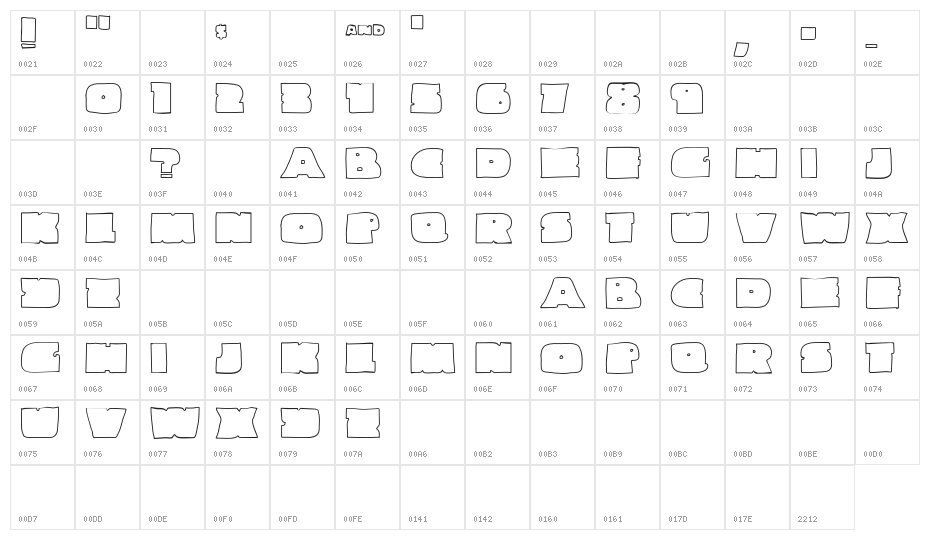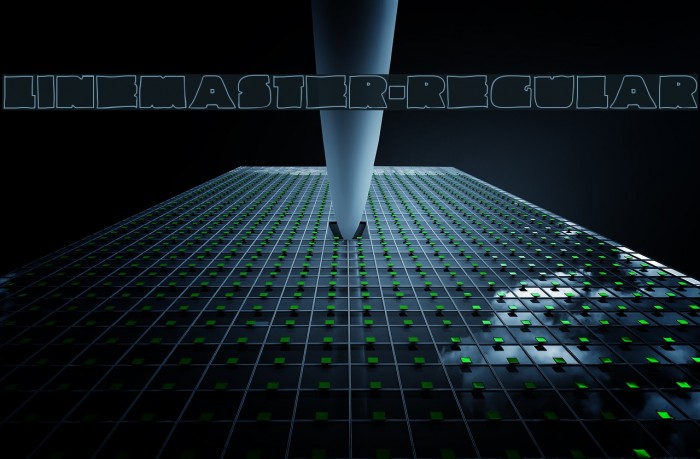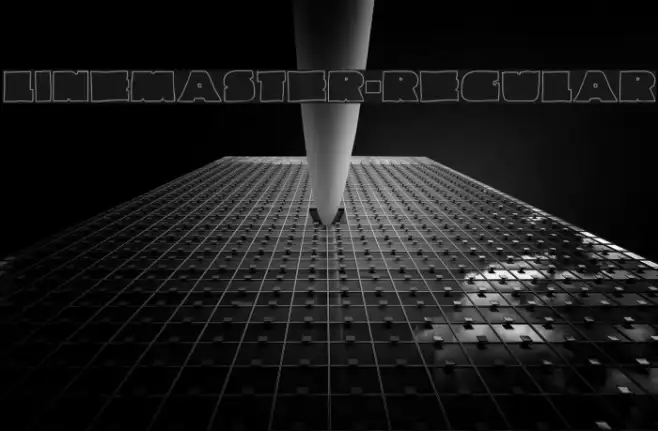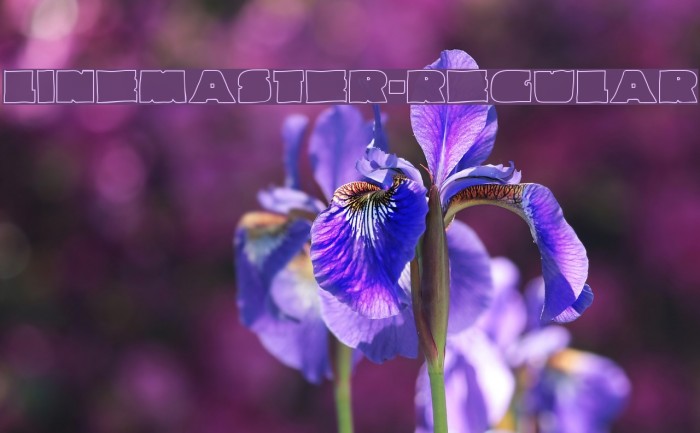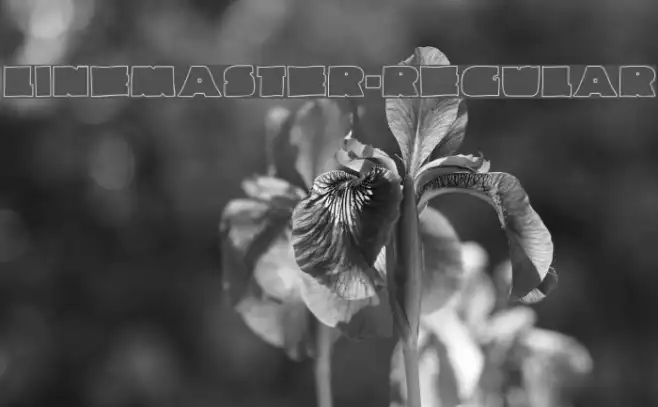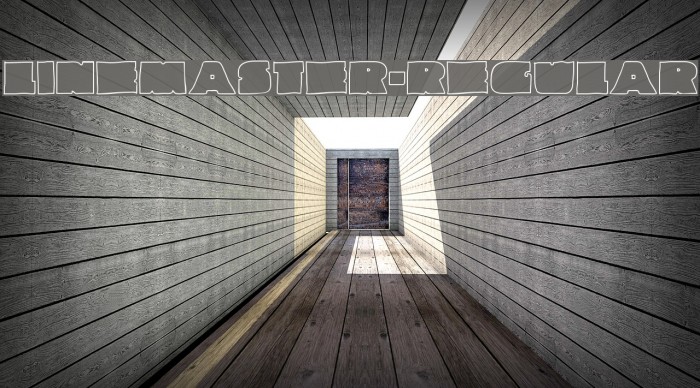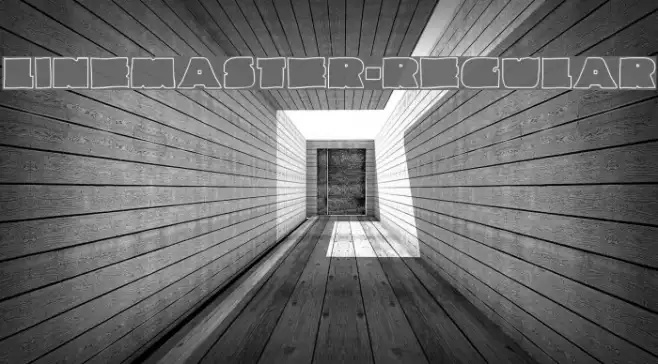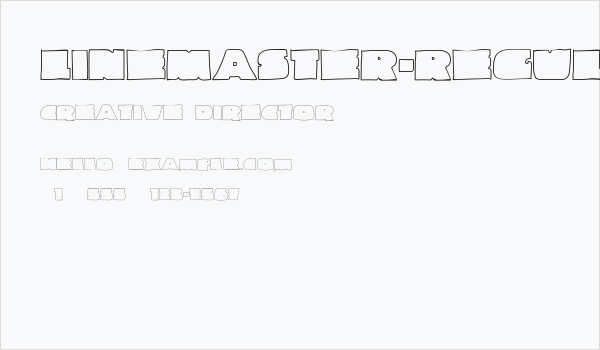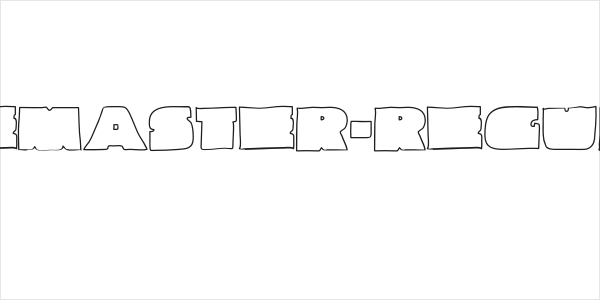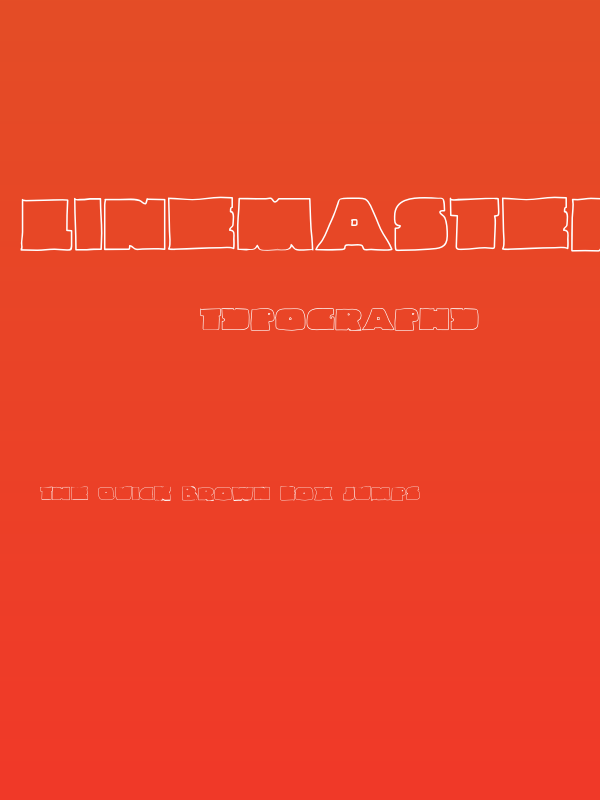
Linemaster-Regular Font
Linemaster-Regular Description
This font features a playful and bold design with a bubble-like appearance. Each character is outlined, giving it a unique, hand-drawn feel. The letters are slightly irregular, adding to the whimsical and informal style. The uppercase and lowercase letters maintain a consistent width, while the numbers and special characters follow the same playful theme. This font is ideal for projects that require a fun and eye-catching look, such as children's books, posters, or party invitations.
Overall StylePlayful, Whimsical
Proposed ProjectsChildren's books, posters, party invitations, playful branding.